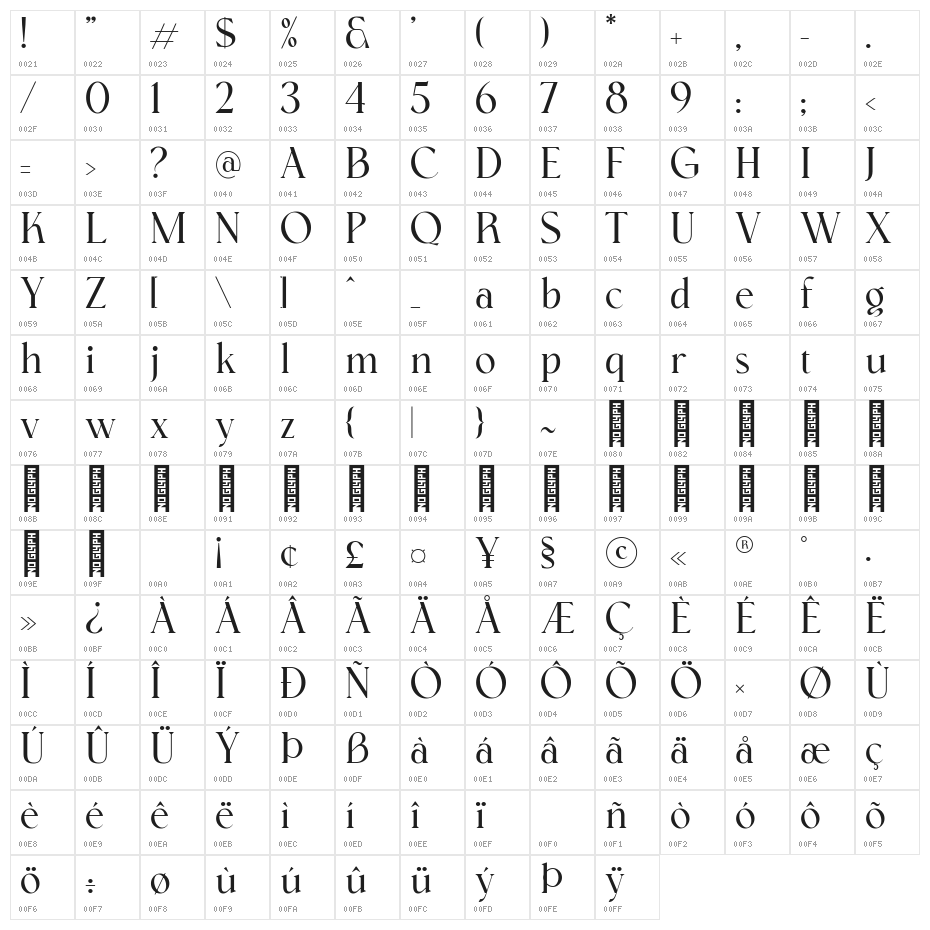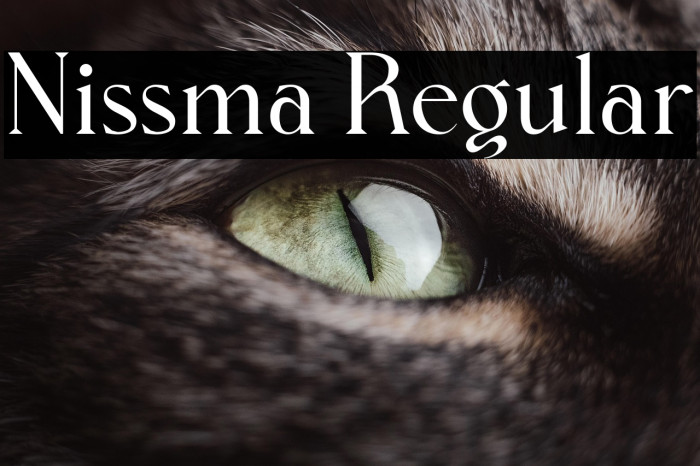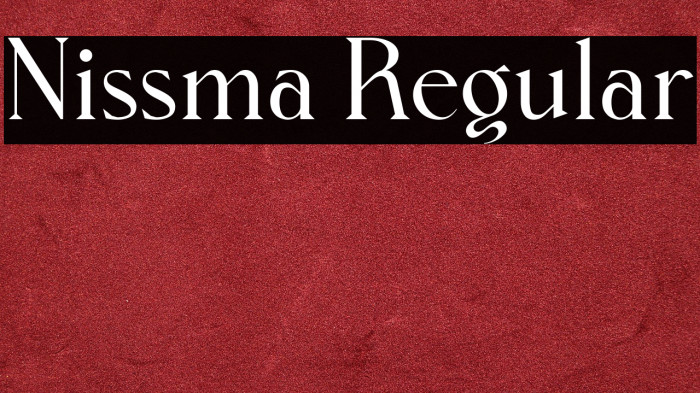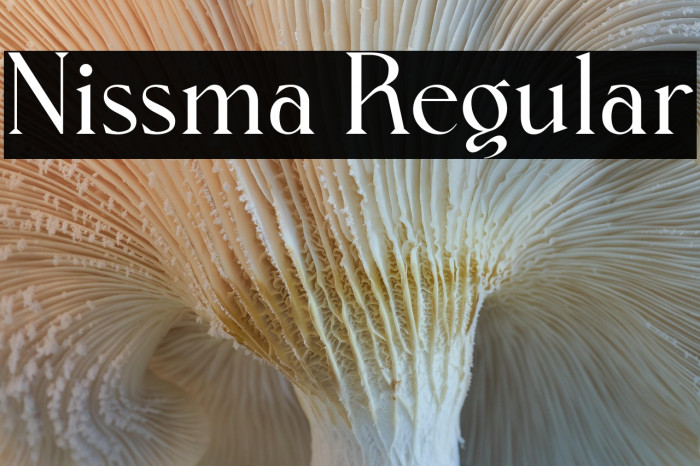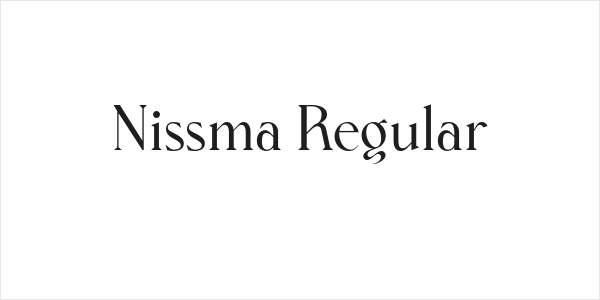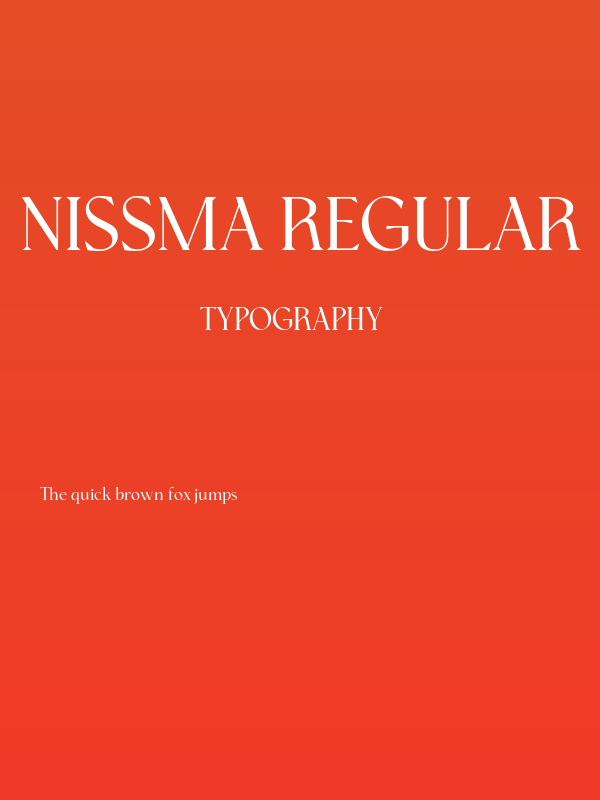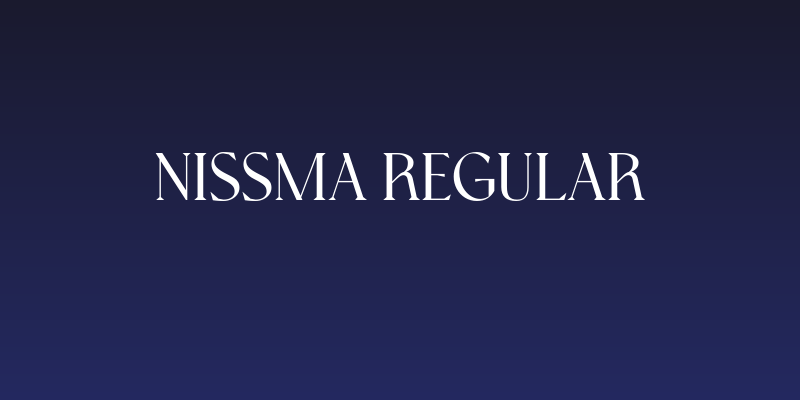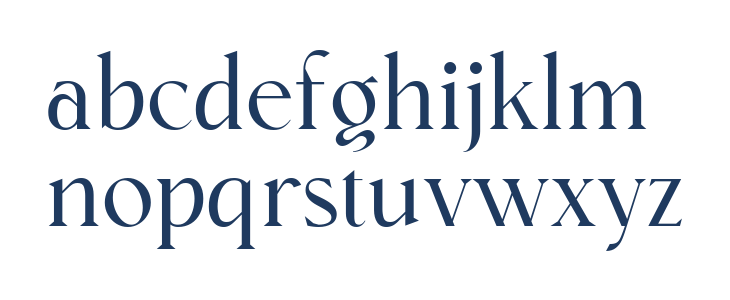
Nissma Regular Font
Nissma Regular Description
This font exhibits a classic serif style with elegant, high-contrast strokes. The uppercase letters are tall and refined, featuring sharp serifs that add a touch of sophistication. The lowercase letters maintain a consistent style, with smooth curves and a balanced appearance. The numerals are distinct and clear, making them suitable for both formal and modern contexts. Special characters are well-integrated, maintaining the overall aesthetic of the font. The design is versatile, offering a timeless appeal that can enhance a variety of projects.
| Proposed Projects | Ideal for editorial design, book covers, branding, and formal invitations. |